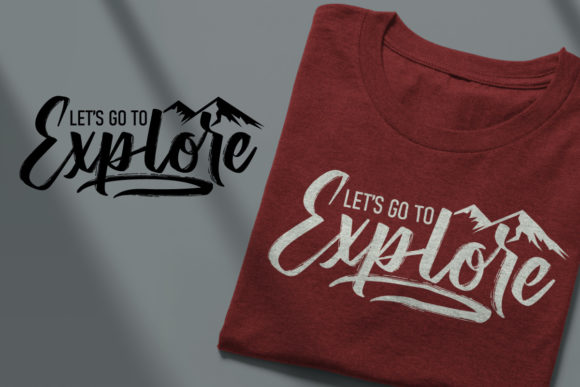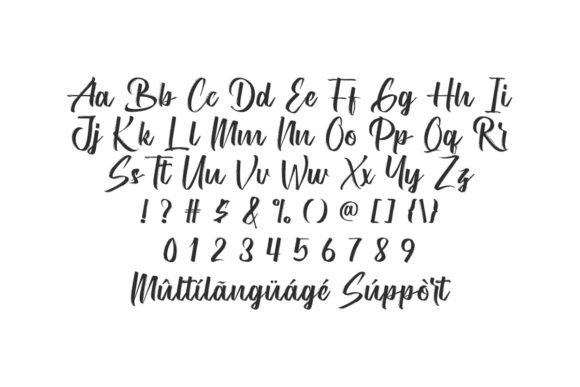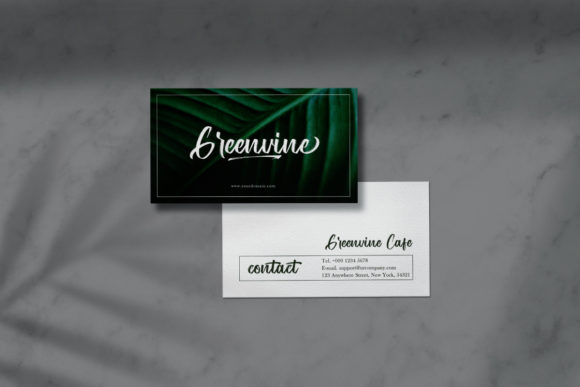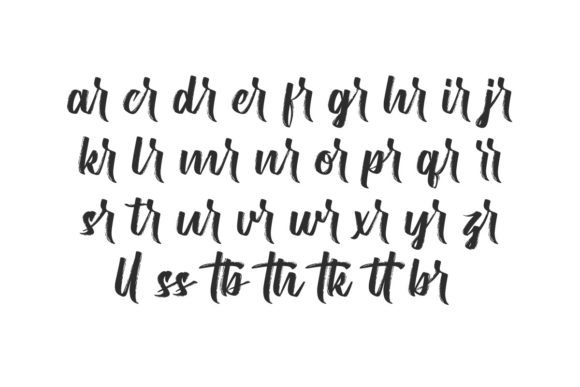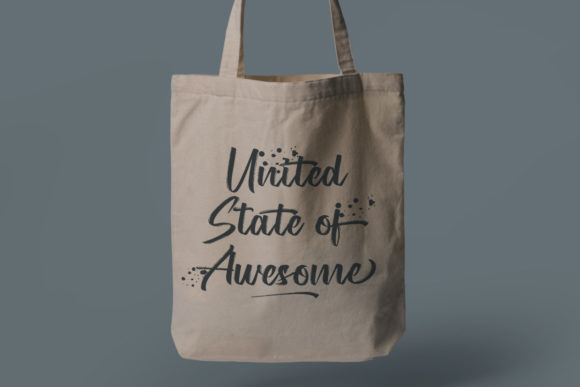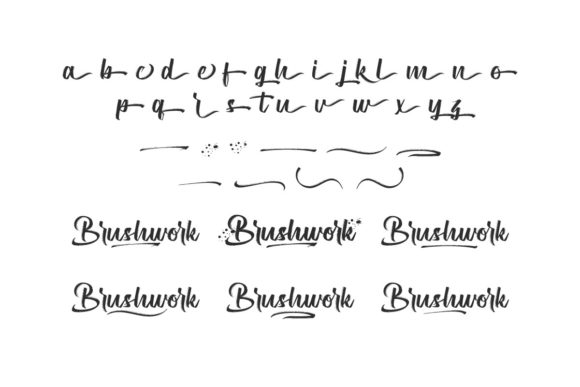
Unleash Your Creativity with Brushwork Font: A Unique Handwritten Font with a Textured Brush Feel
Are you looking for a font that can add a touch of uniqueness and mystery to your designs? Look no further than Brushwork Font, a great handwritten font with a textured brush feel that’s perfect for a wide range of projects. In this article, we’ll explore the features and benefits of Brushwork Font, and show you how it can elevate your designs to the next level.
What is Brushwork Font?
Brushwork Font is a carefully crafted handwritten font that mimics the look and feel of brush strokes. With its textured brush feel, this font adds a level of authenticity and tactility to your designs, making them stand out from the crowd. Whether you’re working on a branding project, logo design, or marketing materials, Brushwork Font is the perfect choice.
Key Features of Brushwork Font
- Textured Brush Feel: Brushwork Font has a unique textured brush feel that gives your designs a hand-crafted look and feel.
- PUA Encoded: This font is PUA encoded, which means you can access all of the glyphs and swashes with ease, giving you maximum creative control.
- Wide Range of Uses: Brushwork Font is versatile and can be used for a wide range of projects, including branding, logo design, stationery, business cards, signage, flyers, brochures, and more.
- Unique and Mysterious Style: The theme style of Brushwork Font is unique, mysterious, dark, and perfect for horror, movie, sporty, gamer, motorcycle, and brush-style designs.
Brushwork Font is perfect for designers and crafters who want to add a touch of personality to their designs. Whether you’re working on a project for a client or creating something for your own brand, this font is sure to impress. With its unique and mysterious style, Brushwork Font is ideal for:
- Events: Use Brushwork Font to create eye-catching event posters, flyers, and brochures that will grab attention.
- Artists and Musicians: Brushwork Font is perfect for artists and musicians who want to create a unique brand identity.
- Cafes and Restaurants: Use Brushwork Font to create menus, signage, and marketing materials that will make your cafe or restaurant stand out.
- Promotion and Marketing: Brushwork Font is great for promotional materials, such as flyers, brochures, and social media graphics.
Tips for Using Brushwork Font
Here are some tips for getting the most out of Brushwork Font:
- Experiment with Different Sizes: Brushwork Font looks great in a variety of sizes, so don’t be afraid to experiment and find the perfect size for your design.
- Combine with Other Fonts: Brushwork Font pairs well with other fonts, so try combining it with a sans-serif font for a unique look.
- Use the Swashes: The swashes in Brushwork Font are designed to add a touch of elegance to your designs, so don’t be afraid to use them.